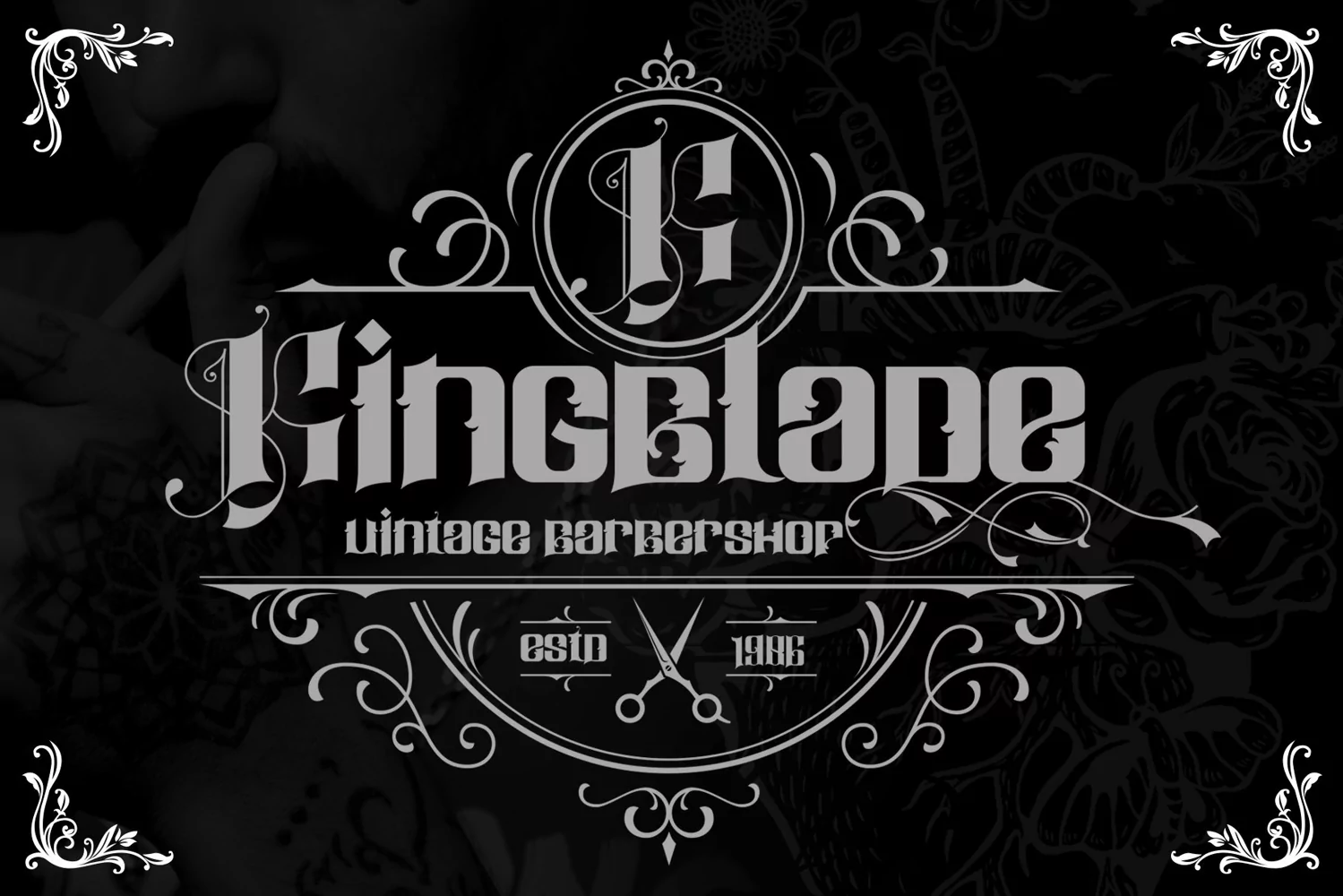
Hollybulk - Vintage Font
If you looking for strong font for display or title this item is a great choice to make your design authentic.
Hollybulk font has 198 character glyphs included the multilingual and alternate glyphs, the alternate glyphs will make your design more decorative.